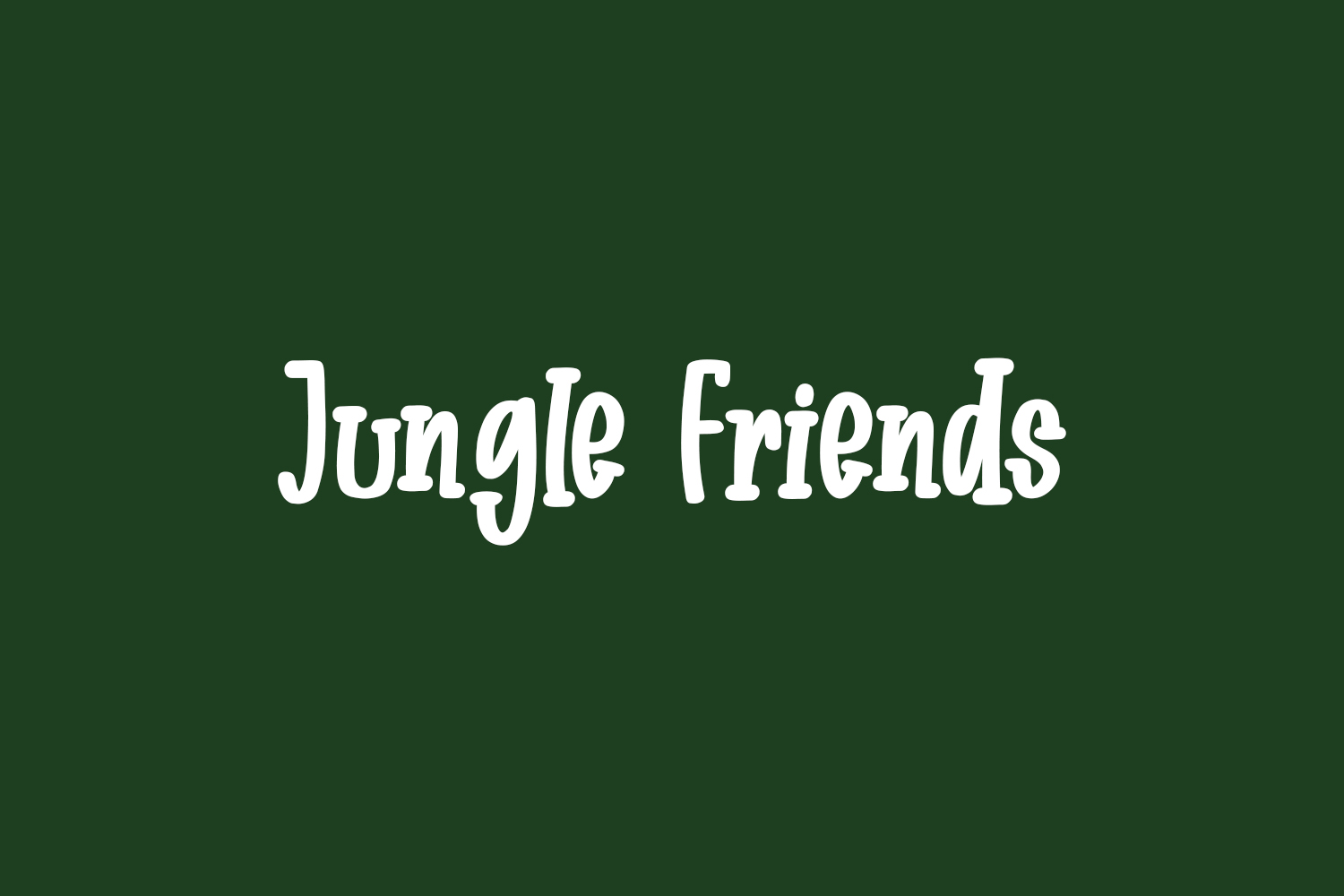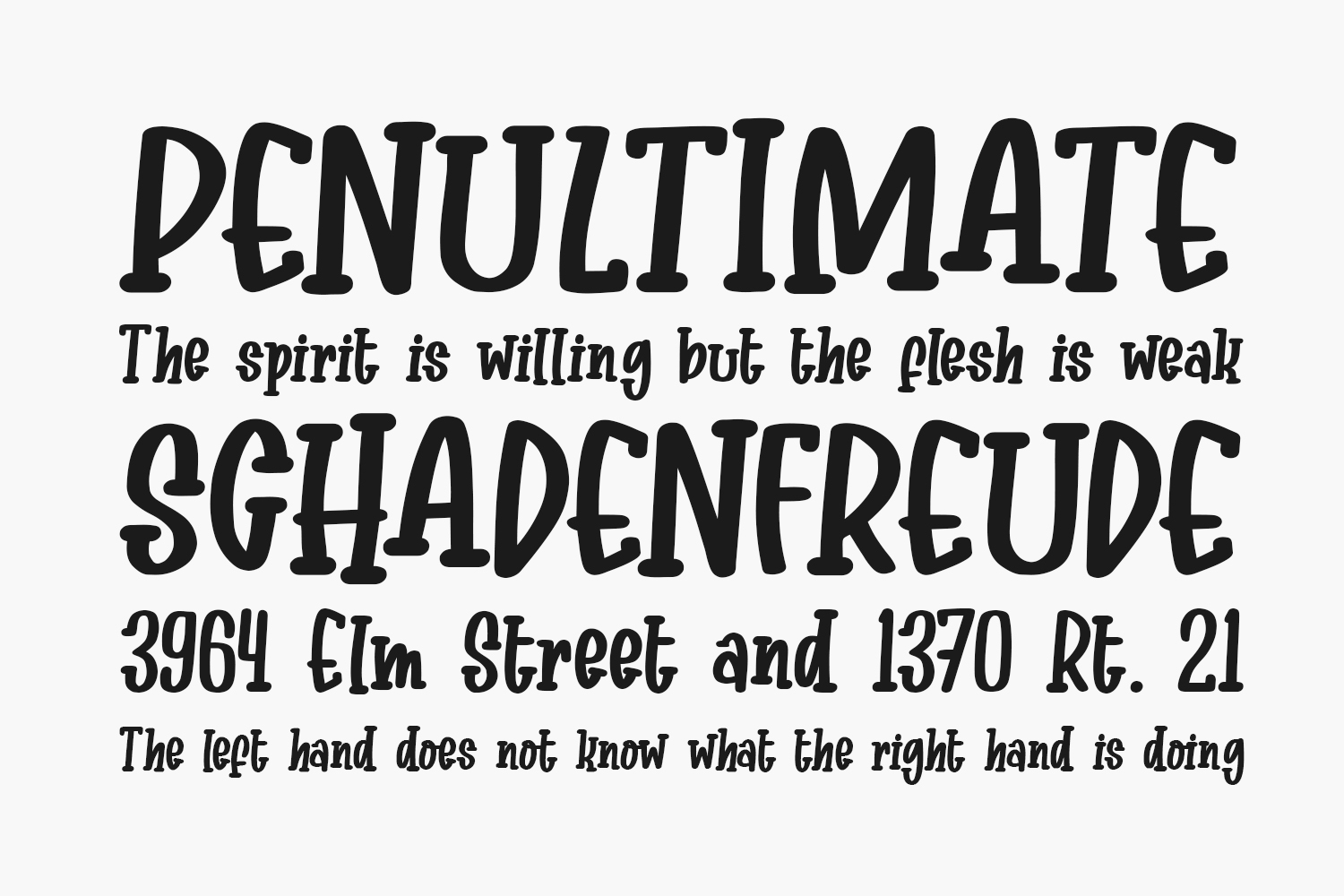
Jungle Friends Free Font is a cute and friendly display font. Its friendly feel makes this font incredibly versatile, fitting a wide range of design and craft concepts. Add it to your creative ideas and notice how it makes them stand out. Jungle Friends Free Font was designed by Subectype & Orenari and is free for personal use only. Please purchase the full version for commercial use.
Designed by Subectype & Orenari